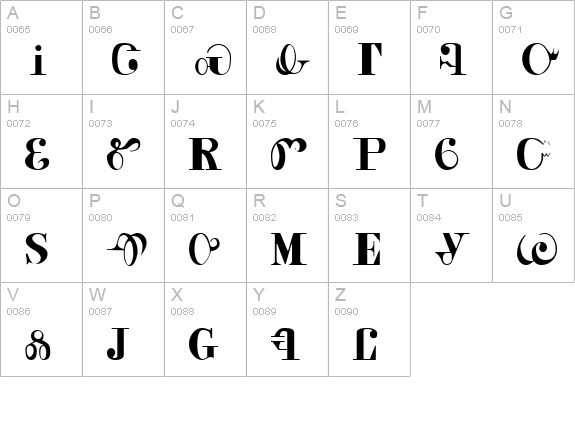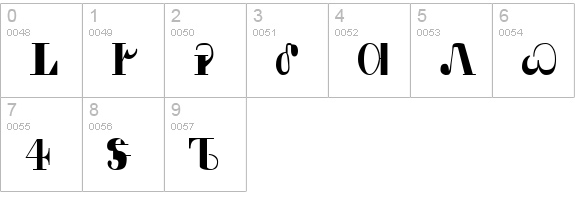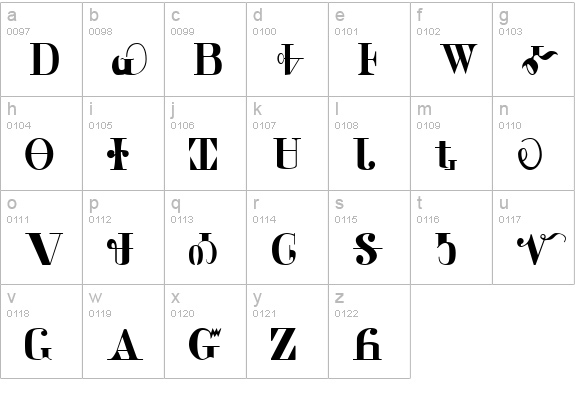
Cherokee Font Details
The Cherokee font is a beautifully crafted typeface that pays homage to the rich cultural heritage of the Cherokee people. Its elegant and distinctive characters are inspired by the unique writing system of the Cherokee language. This font is not only visually appealing but also carries a deep sense of history and tradition. Best of all, the Cherokee font is available for free download at FontsMarket.com. Whether you are looking to add a touch of cultural diversity to your design projects or simply appreciate the beauty of this indigenous script, the Cherokee font is a must-have addition to your font collection. Download it now and start creating stunning designs that stand out from the rest.